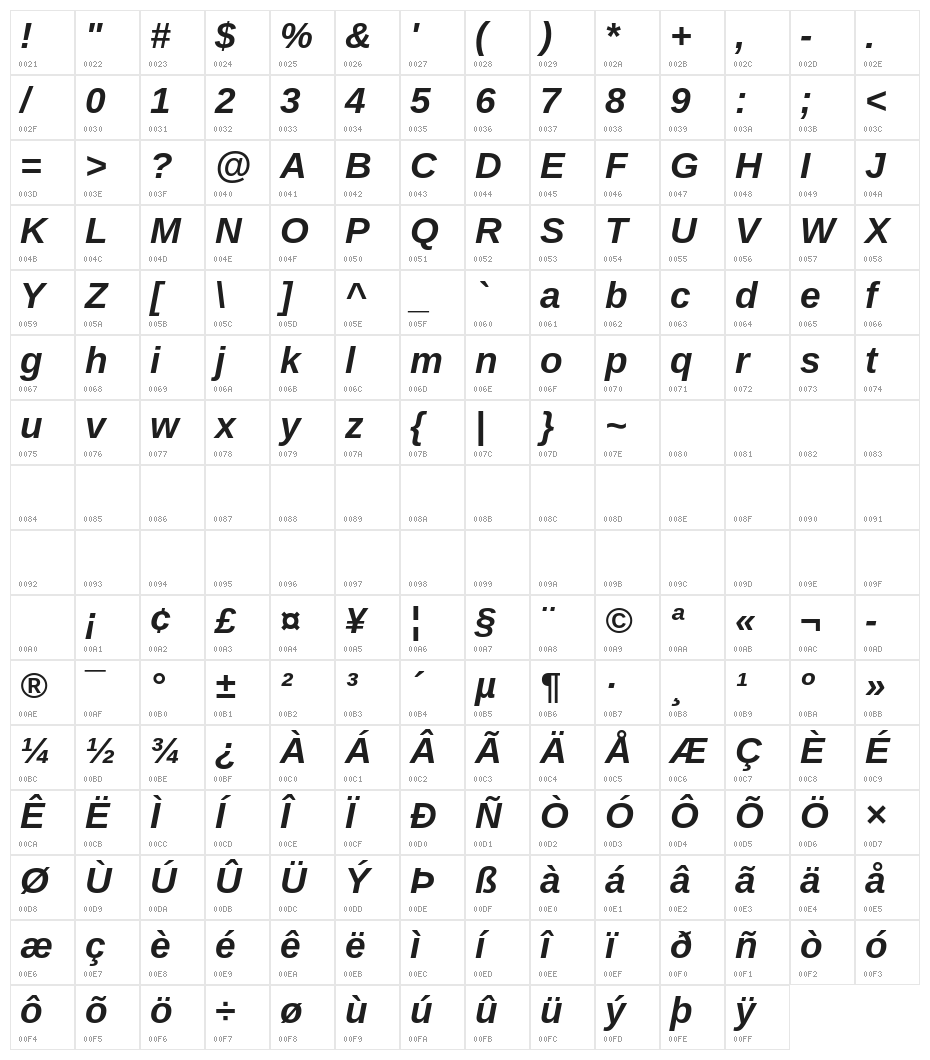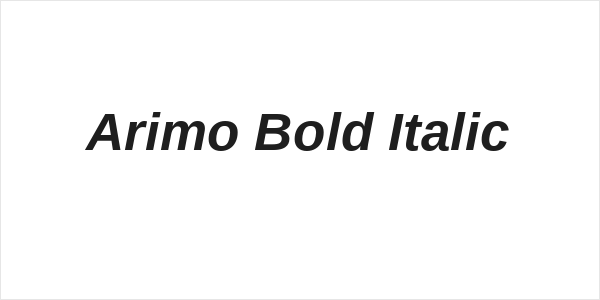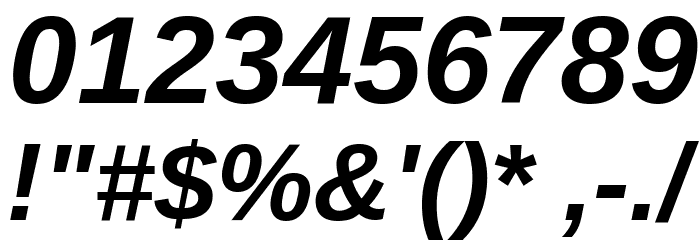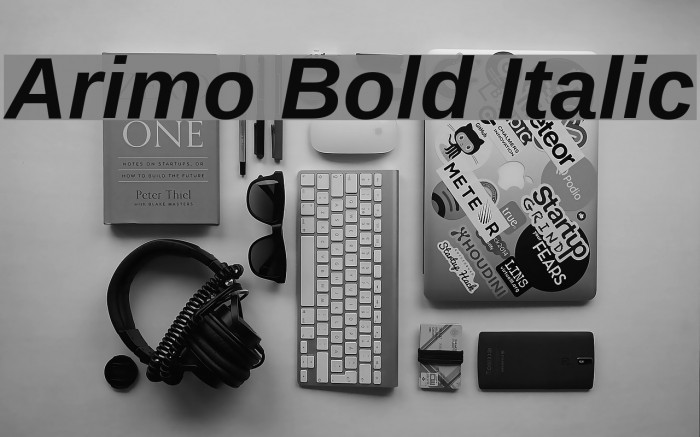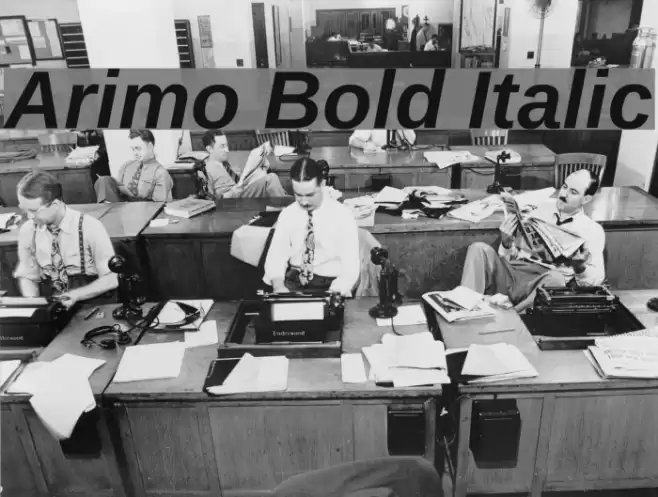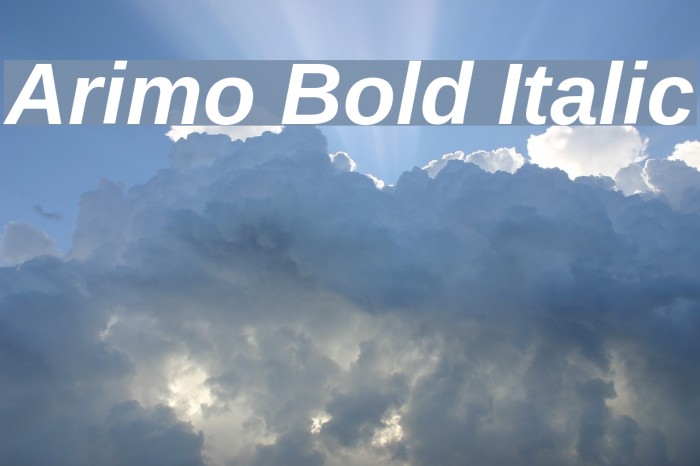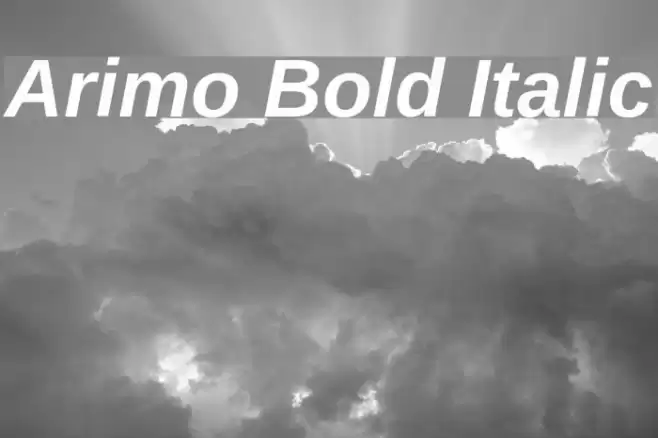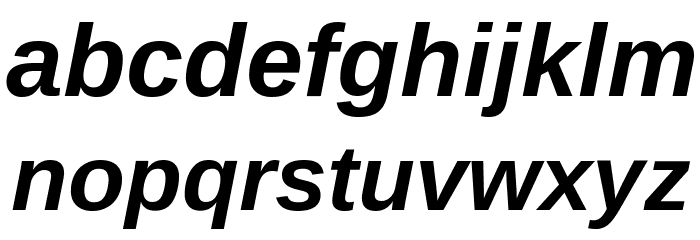
Arimo Bold Italic Font
Arimo Bold Italic Description
This font features a bold and italic style, offering a dynamic and modern appearance. The characters are slightly slanted, enhancing the italic effect, while maintaining a strong and confident presence due to the bold weight. The sans-serif design ensures readability and a clean look, making it suitable for various applications. The strokes are consistent, providing a uniform appearance across all characters. The numerals are clear and distinct, matching the overall style of the alphabet. Special characters are well-integrated, ensuring versatility in usage.
| Use Case | Headlines, Logos, Digital content |
| Proposed Projects | Ideal for headlines, branding, advertising, and digital content where a strong and modern impression is needed. |